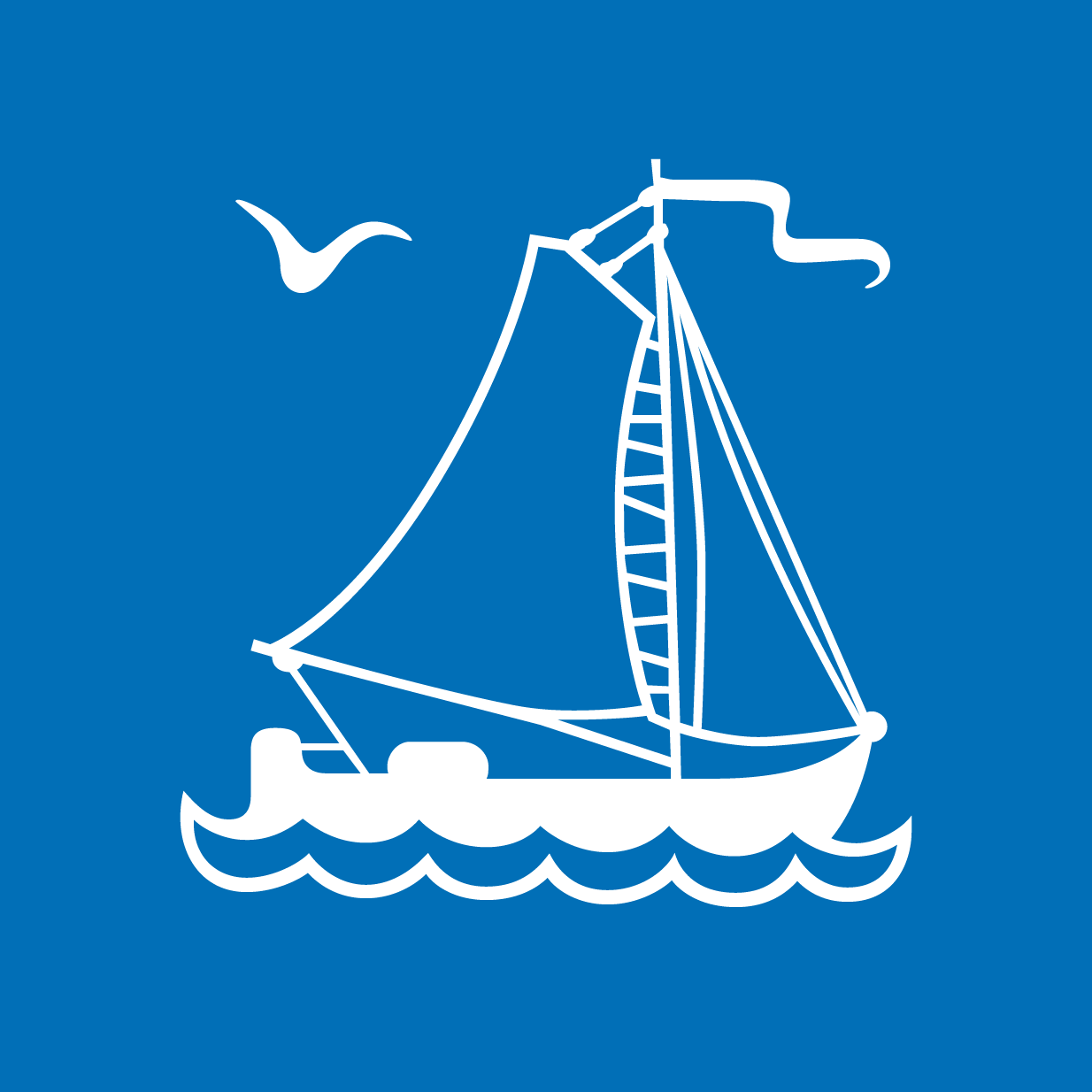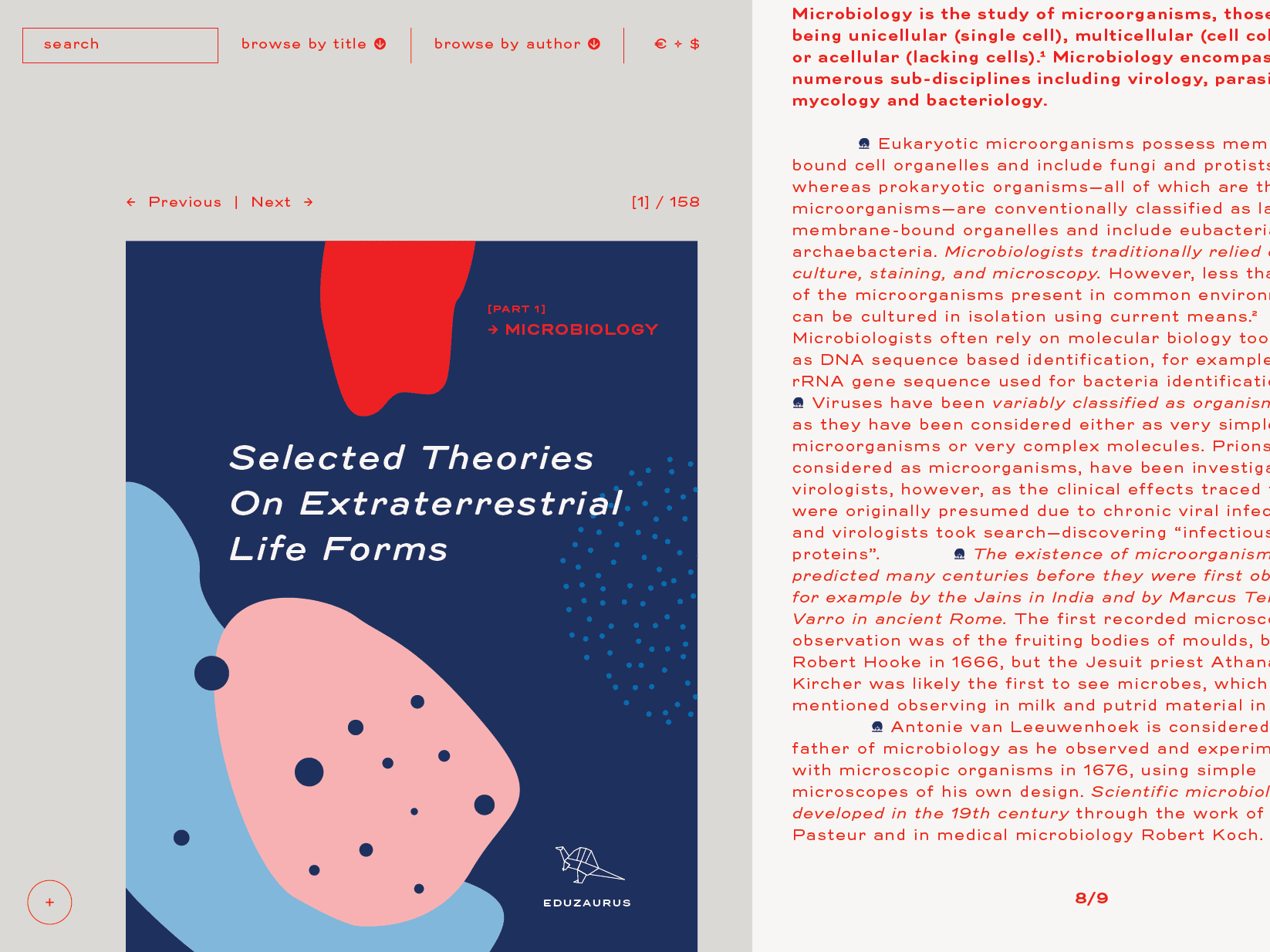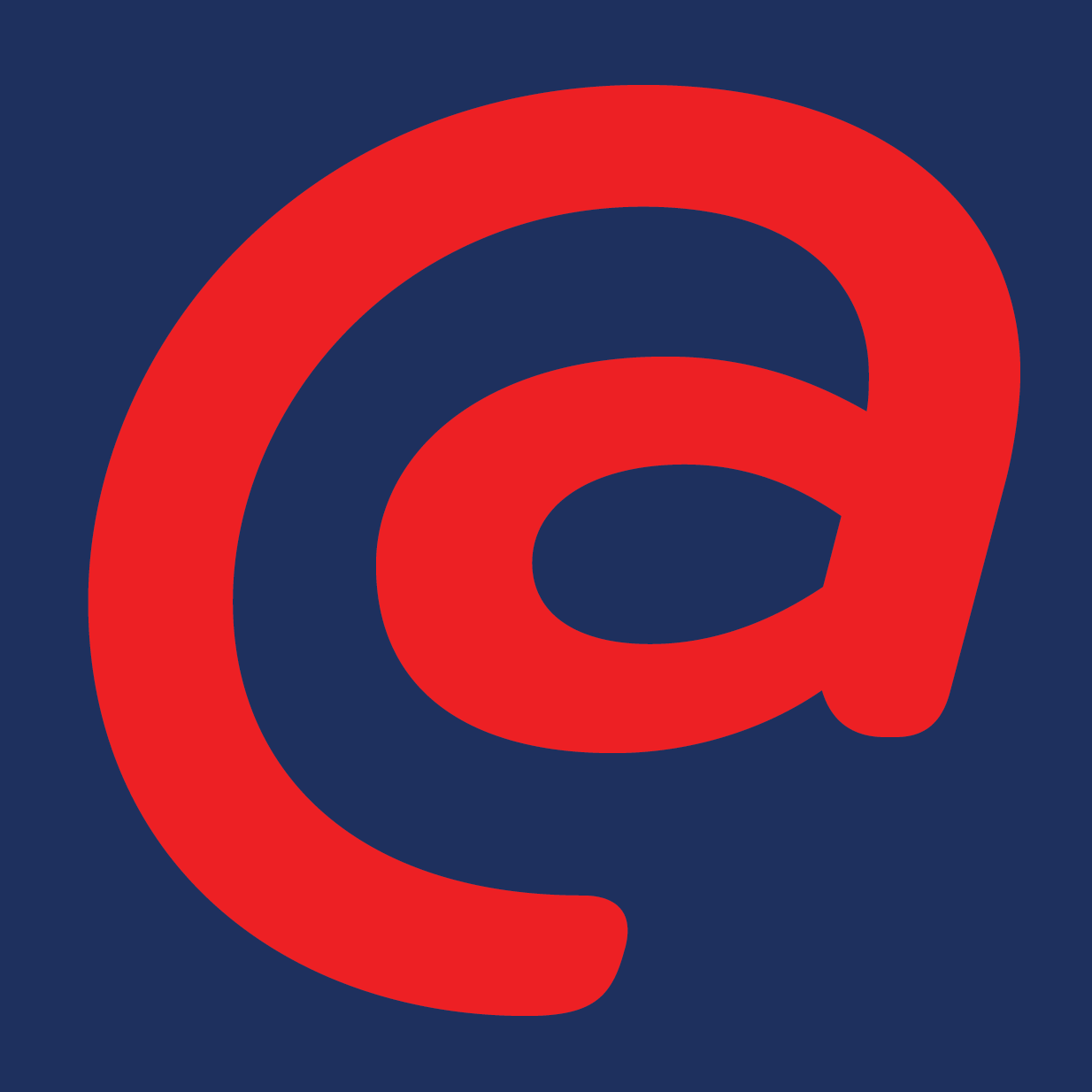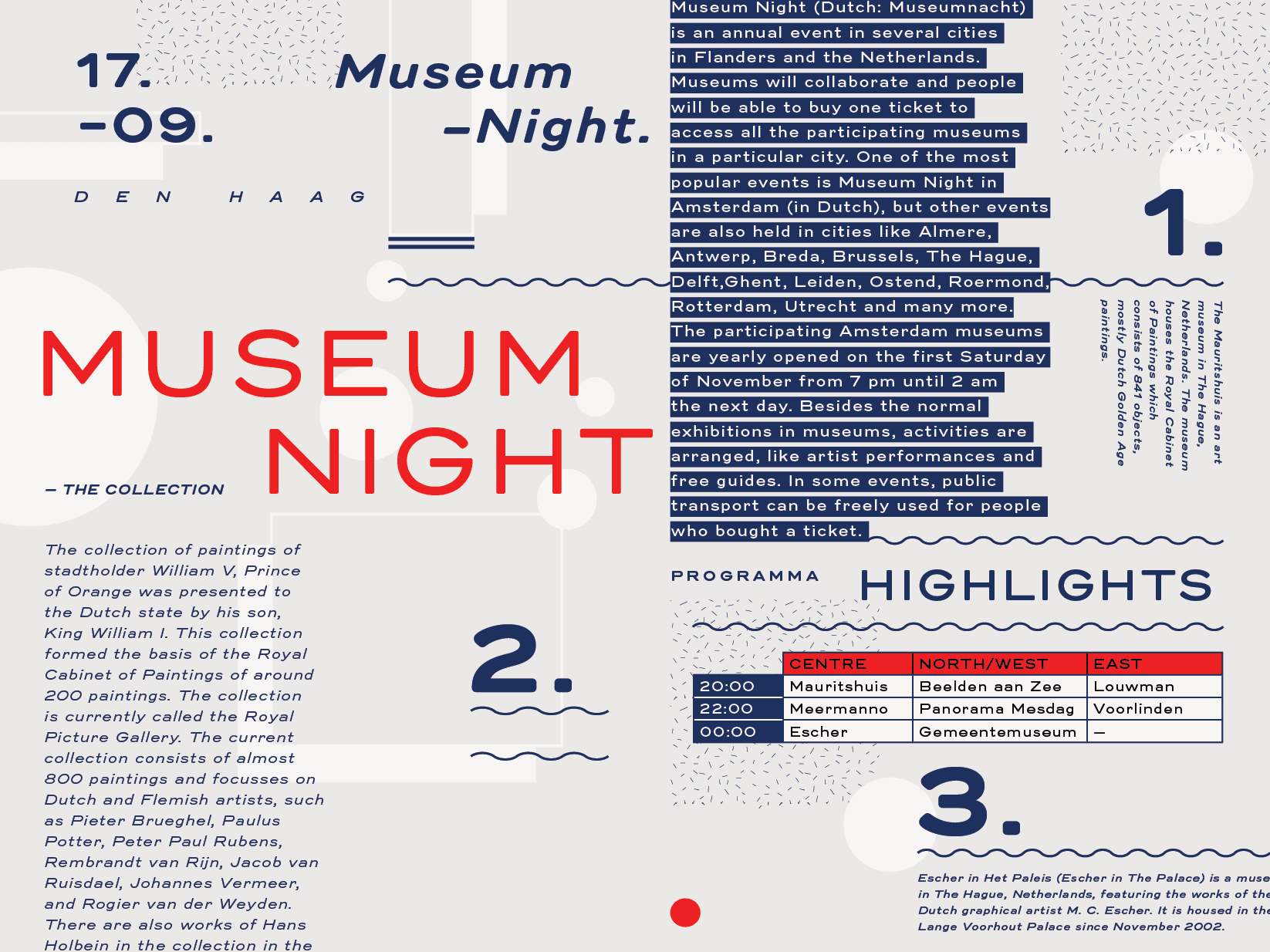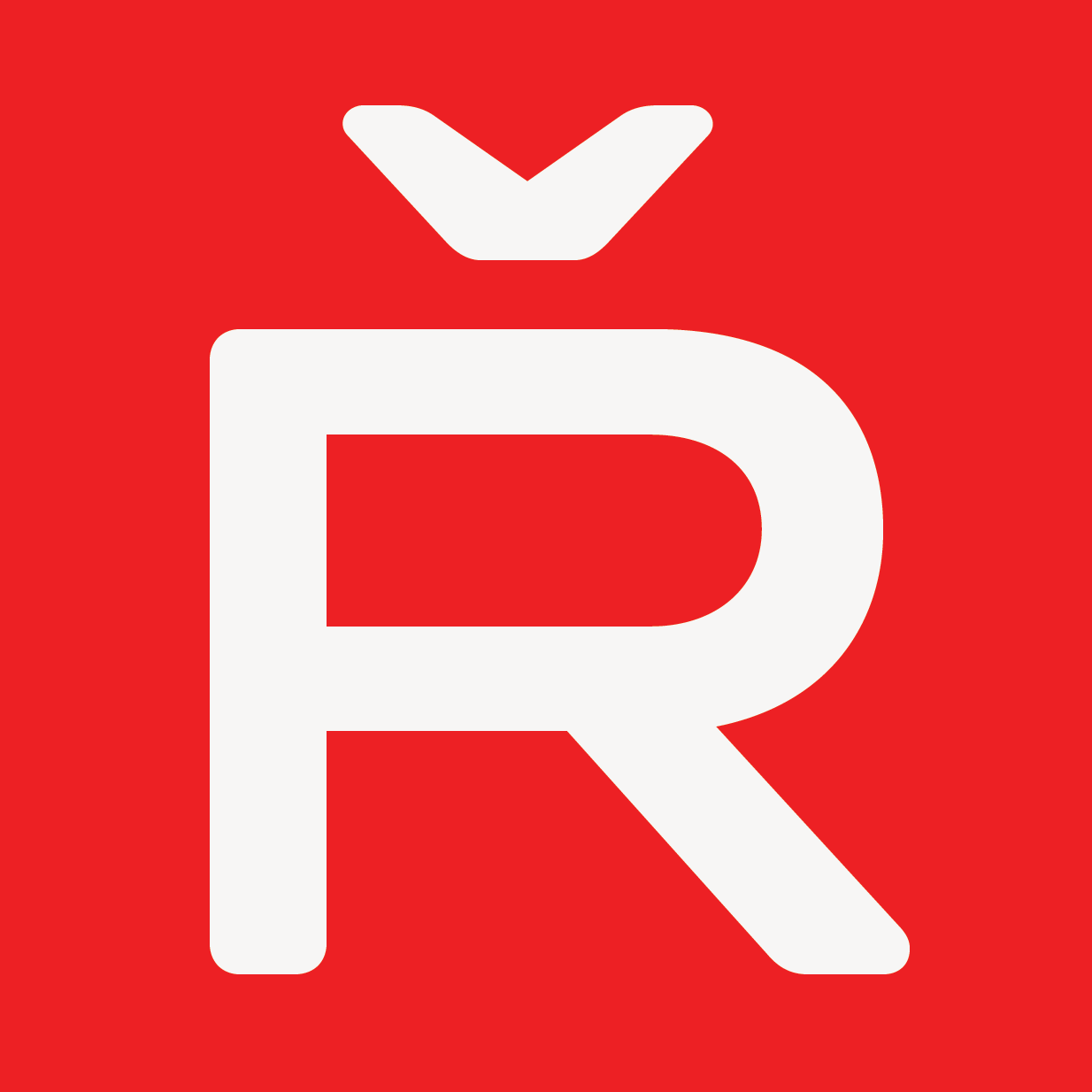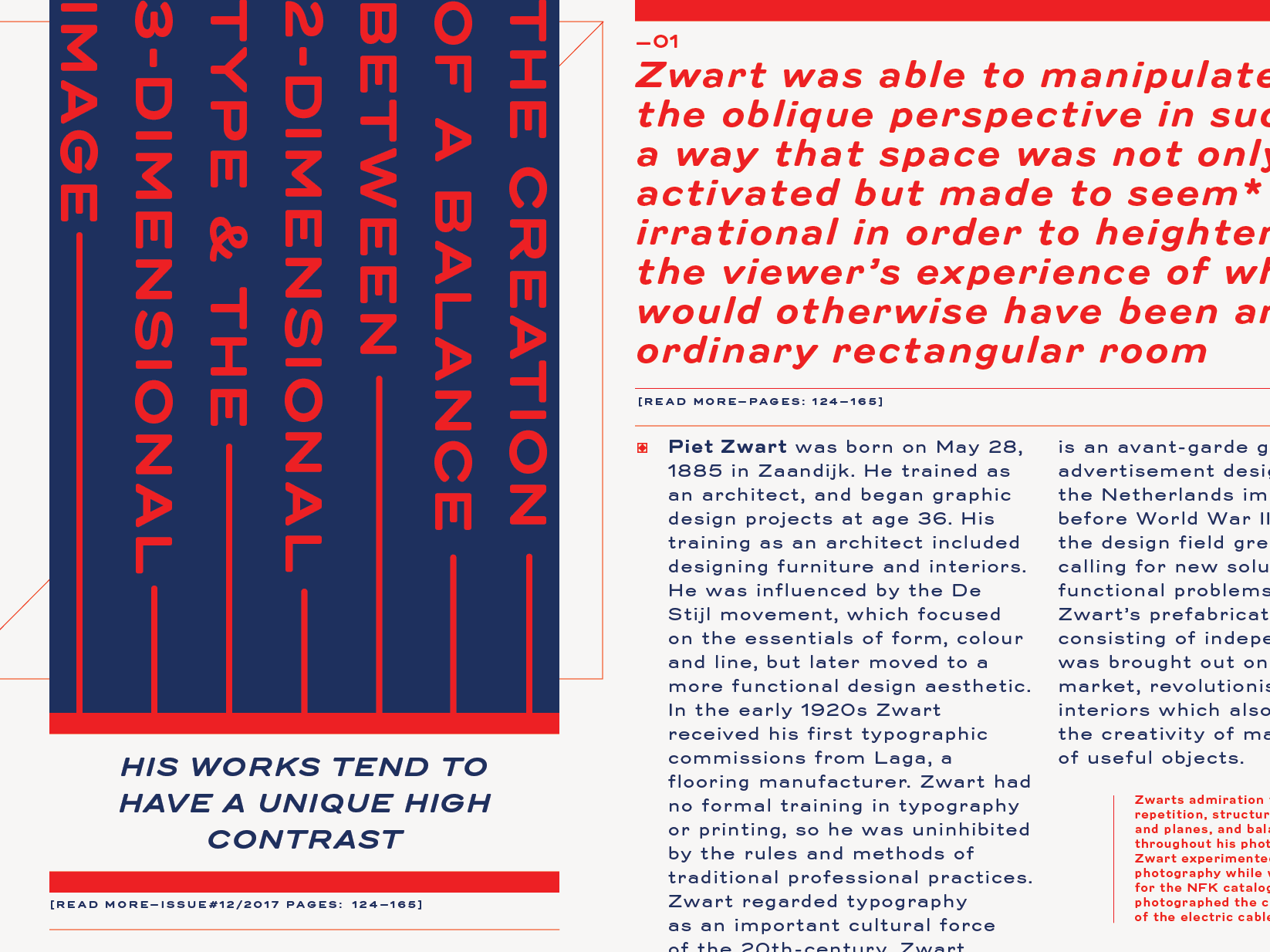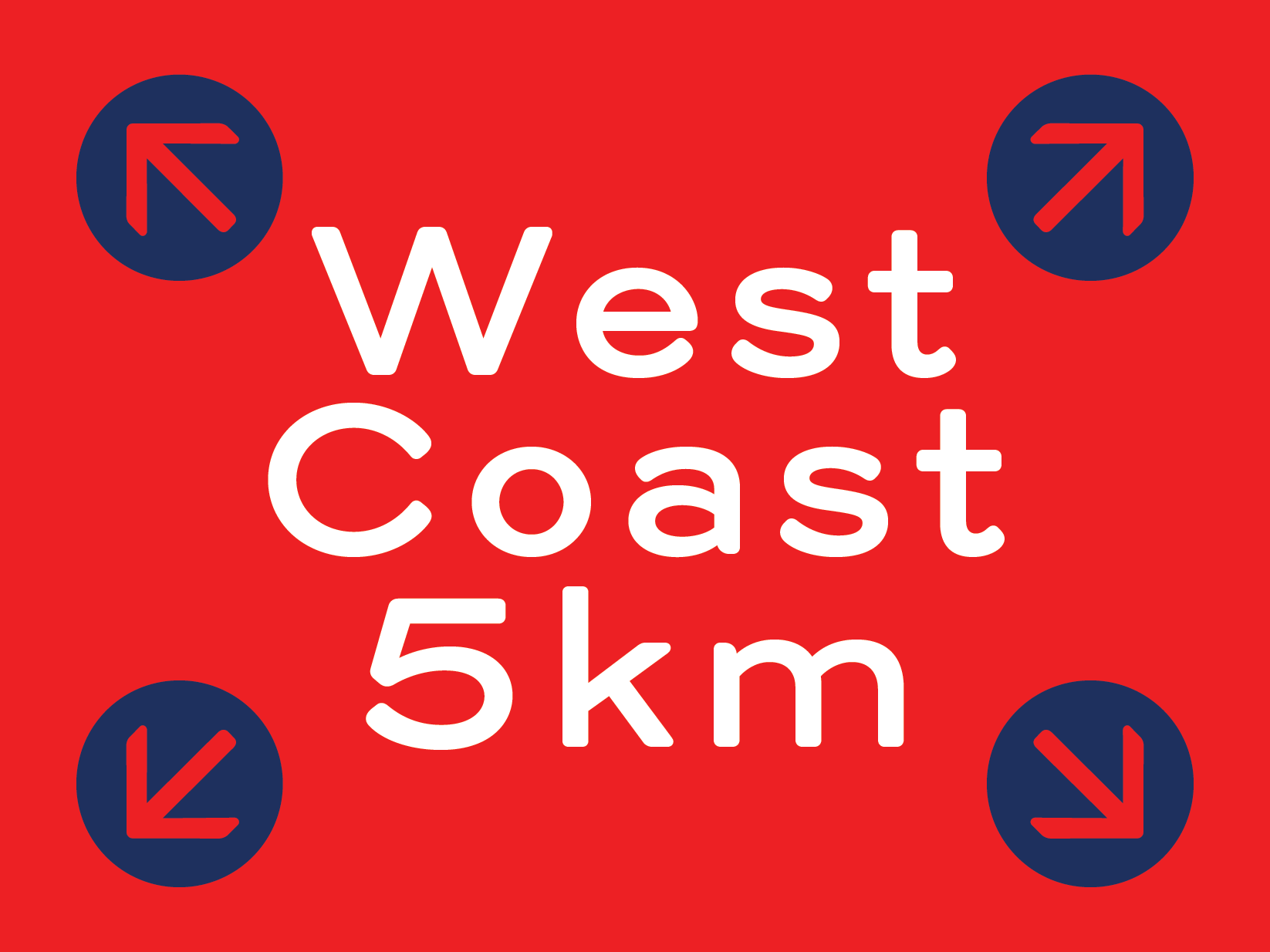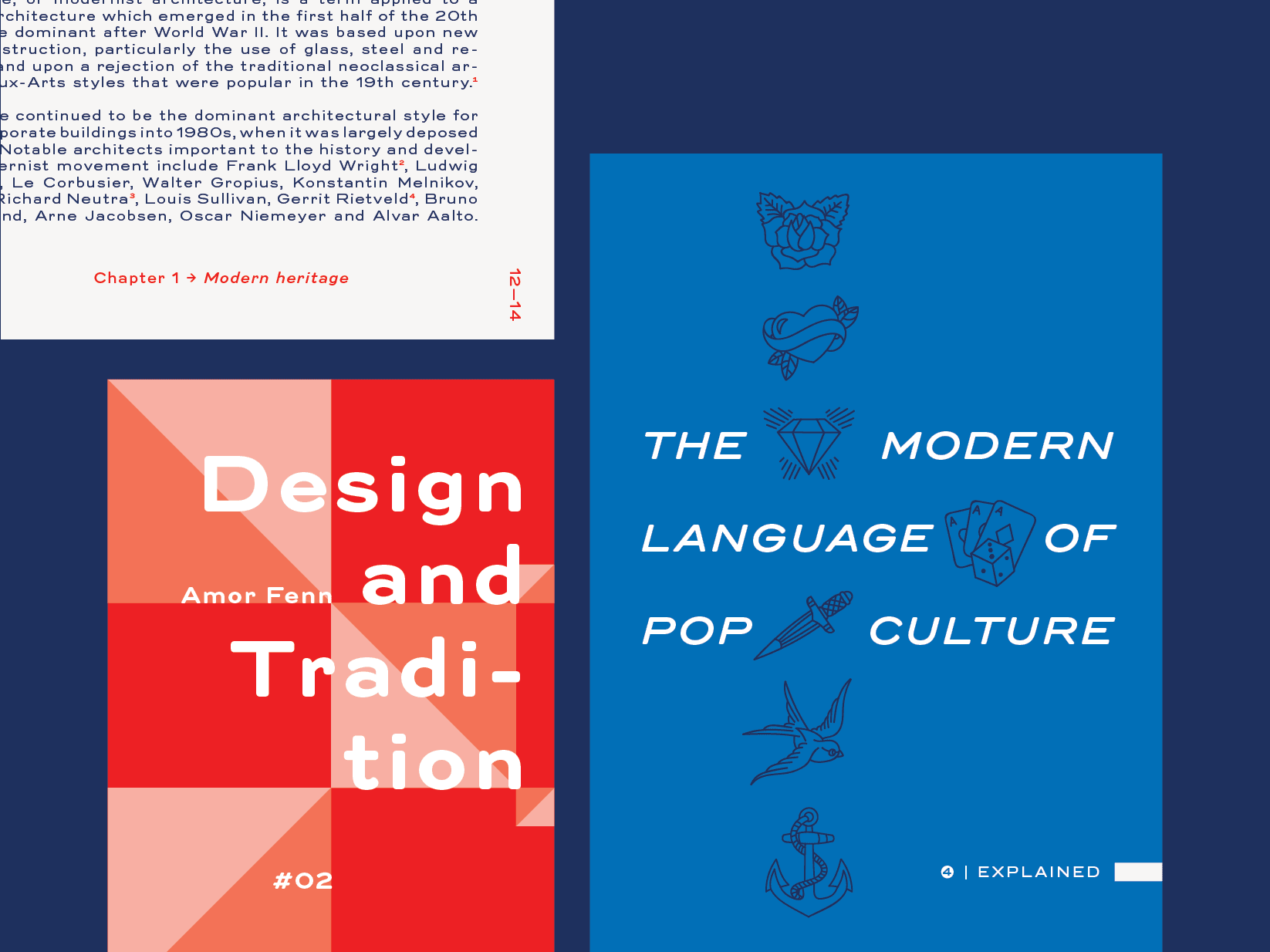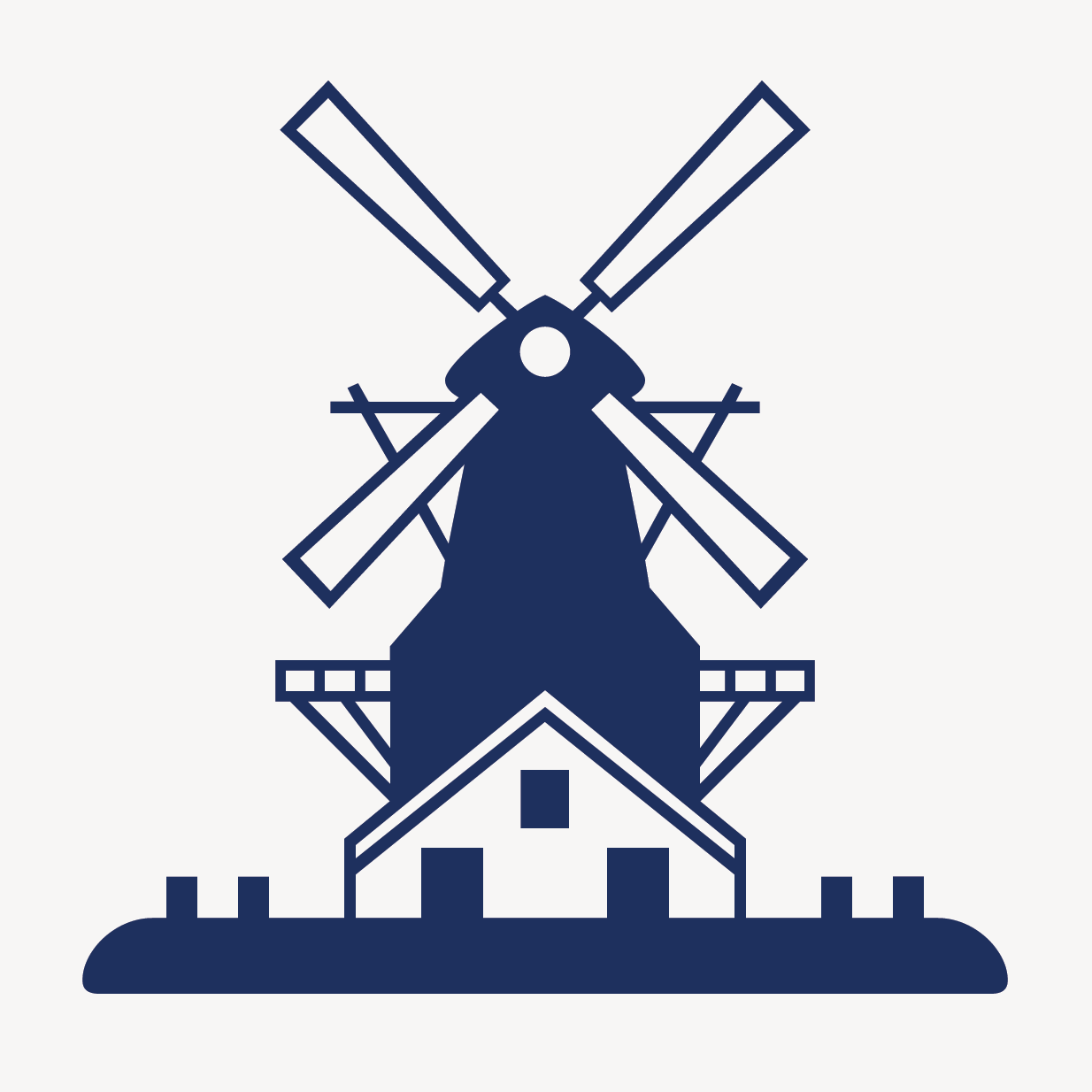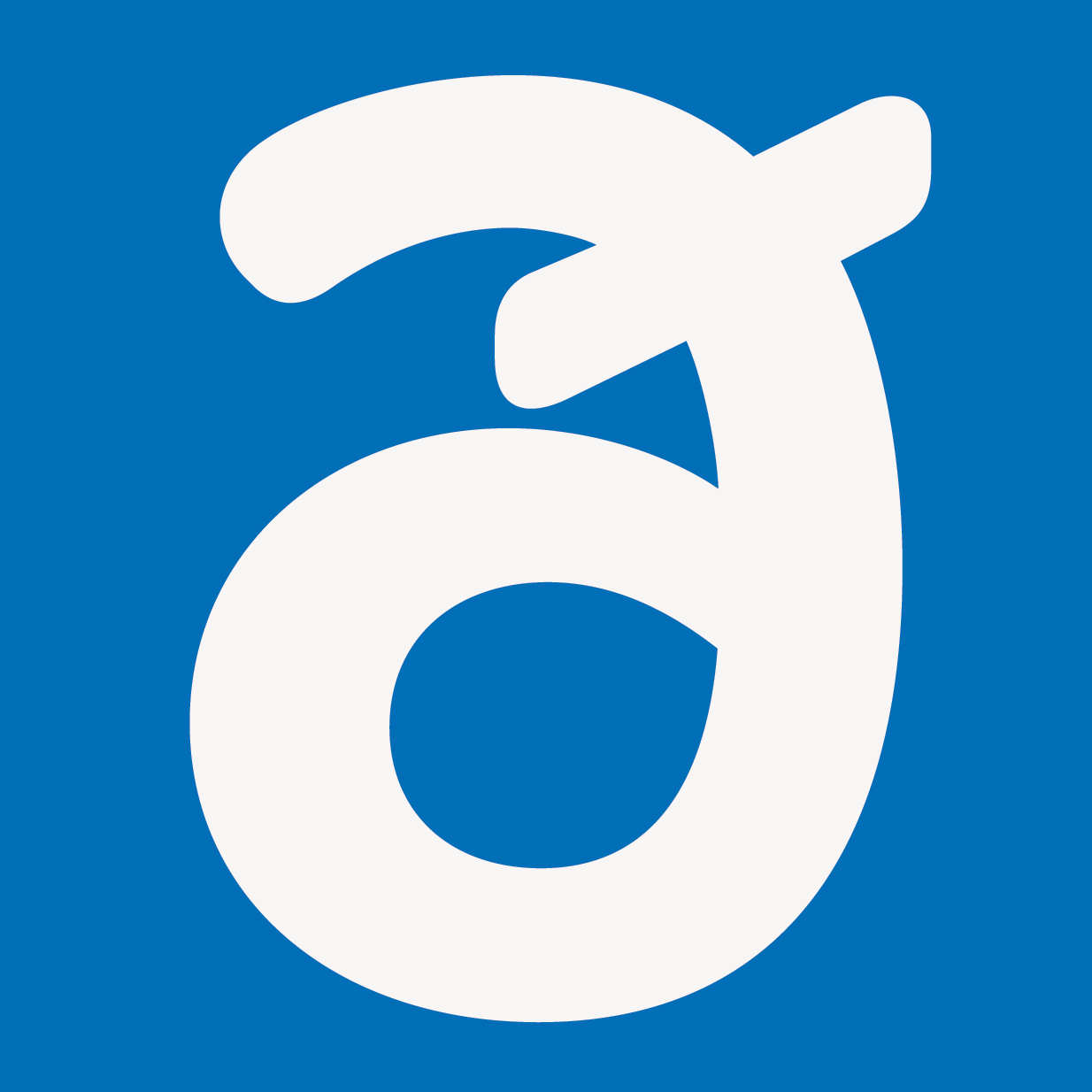
Trio Grotesk
Trio Grotesk is Florian Schick’s personal interpretation of Kaart Antieke — an early 20th century sans-serif used by Piet Zwart in his famous, yet never officially published essay about modern typography called ‘Van oude tot nieuwe typografie’.
Trio Grotesk started as a student project for the KABK Type & Media masters course in type design. During a visit to the Meermanno Museum in Den Haag Schick discovered the only two remaining copies of Piet Zwart’s essay. Being struck by the historical value of this booklet, he promptly decided to revive the typeface it was set in.
Florian enlarged and examined the original 7 pt printed typeface in great detail and tried to replicate the printed image of this typeface as faithfully as possible. Certain features which are unique to letterpress printing, such as the roundings of stoke endings and junctions caused by ink spread and pressure, have been preserved.